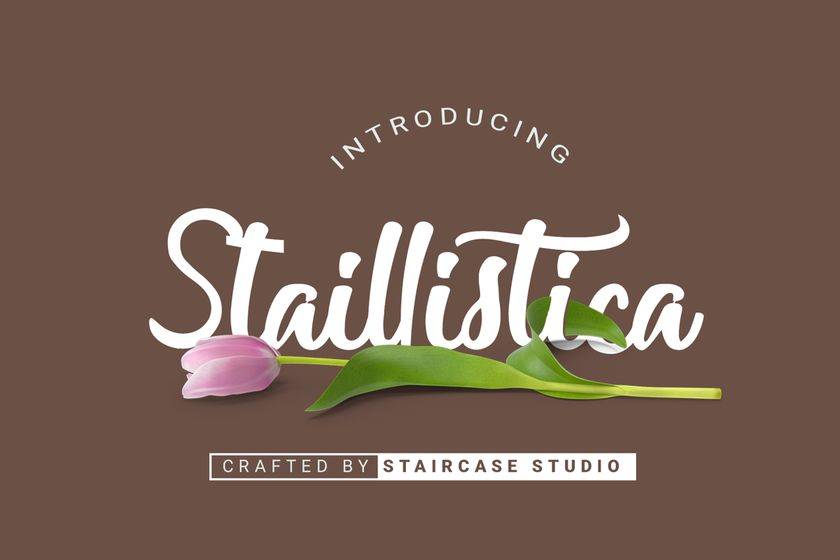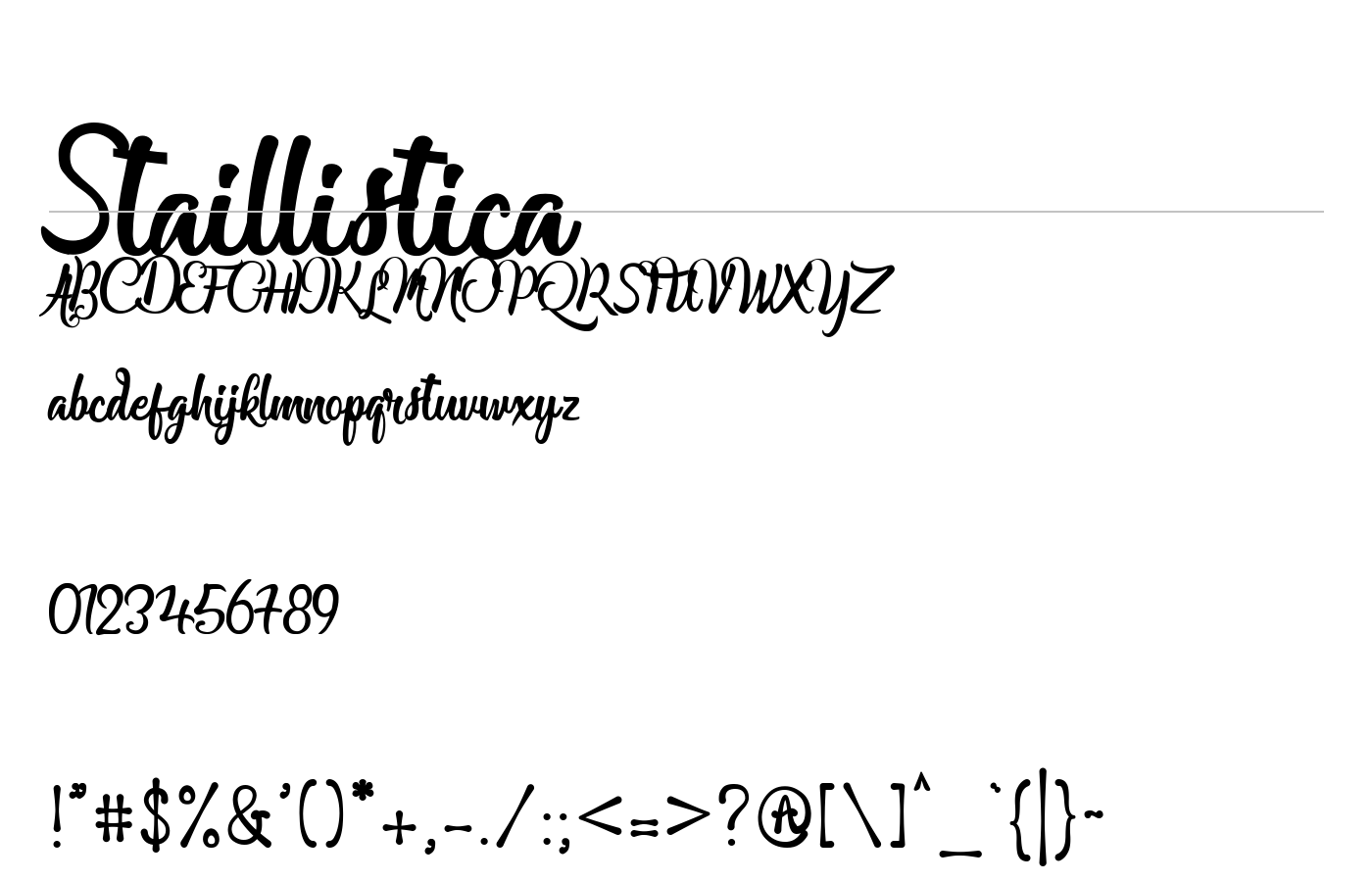
Staillistica is a sleek and elegant script font with a smooth, flowing style that feels both modern and personal. Its moderately high x-height and consistent stroke weight give it good readability, while the playful curves and stylish ligatures add a touch of charm and sophistication, making it ideal for branding, invitations, and creative headlines that want to convey warmth and elegance.
Staillistica Font
About Staillistica Font
| Font family | Staillistica Font |